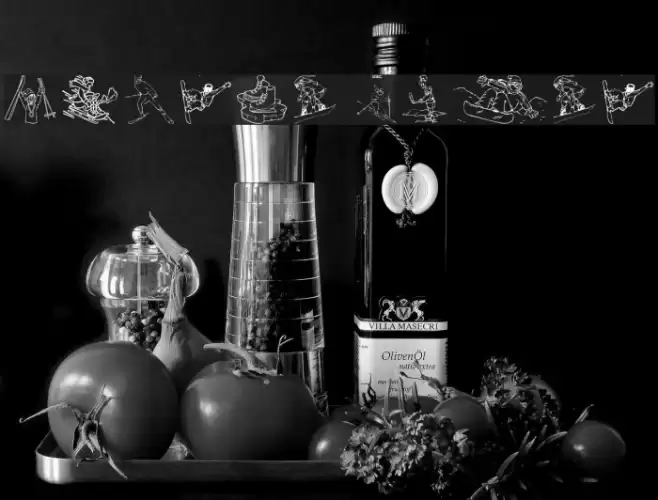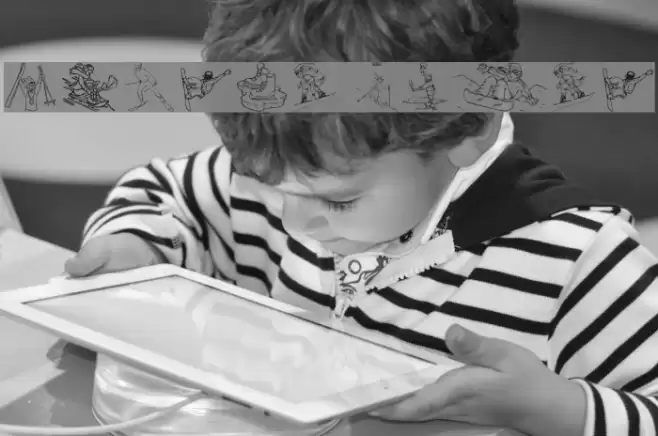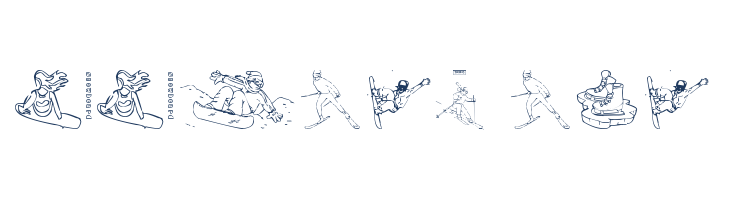
Winter Sport Font
Winter Sport Description
A playful, illustrative font where each character is represented by a unique winter sports cartoon, featuring dynamic line art and whimsical scenes such as skiing, snowboarding, and ice skating.
Cartoonish winter sports illustrations form each character from Dingbats fonts.
- Proposed Projects: Children’s books, winter event posters, holiday cards, playful branding, themed party invitations.
- Overall Style: Playful, Whimsical, Thematic
- Use Case: Logos, Headlines, Posters, Themed graphics